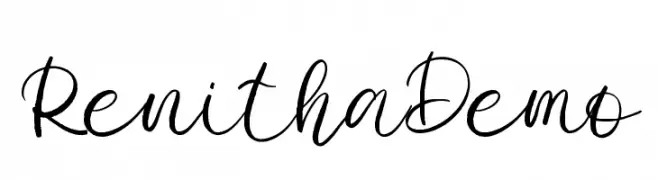
An elegant script font with high contrast and flowing curves.
A flowing, elegant script font with a handwritten calligraphy style.
A festive, elegant script font with flowing, calligraphic style.
A bold, flowing script font with elegant, curvaceous letterforms.
A playful and elegant script font with flowing, cursive letters.
A lively and elegant script font with flowing, cursive letterforms.
A flowing, cursive handwritten font with elegant connections.
A lively, flowing script font with elegant cursive letterforms.
A modern, elegant script font with flowing, cursive characters.